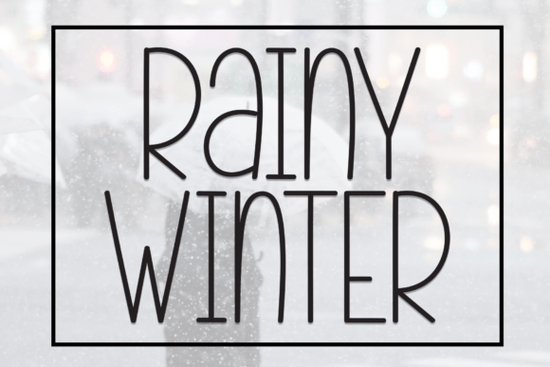
If you're looking for a handwritten display font that feels personal, warm, and full of character, the Rainy Winter Font might be just what your next project needs. Designed with soft curves and gentle imperfections, it captures the cozy mood of a quiet winter day perfect for adding a human touch to invitations, greeting cards, or small-batch product packaging.
Unlike rigid, overly polished typefaces, this font leans into its hand-drawn charm. Each letter has subtle variations that mimic real handwriting, making your designs feel less “mass-produced” and more thoughtfully crafted. That’s especially valuable if you’re creating custom stationery, printable art, or branding for a boutique business where authenticity matters.
What kinds of projects work best with Rainy Winter Font?
This font shines in contexts where warmth and approachability are key. Think:
- Wedding and event stationery – from save-the-dates to place cards
- Seasonal greeting cards – especially for winter holidays or rainy-day sentiments
- Handmade product labels – like candles, soaps, or baked goods
- Social media quotes or digital prints – where a soft, friendly tone fits the message
Because it’s a display font, it’s best used for headlines, short phrases, or decorative text not body copy. Pair it with a clean sans-serif (like Montserrat or Lato) for contrast and readability.
Is this font beginner-friendly?
One thing to note: because it’s a script-style font, some letter combinations may benefit from manual kerning (adjusting spacing between letters) for optimal flow. But for casual use like printing a birthday card or designing a simple logo it’s ready to go right out of the box.
Fonts like Rainy Winter remind us that design doesn’t always need to be sleek or minimalist to be effective. Sometimes, a little imperfection like the smudge of ink on a handwritten note is exactly what makes a piece feel genuine.